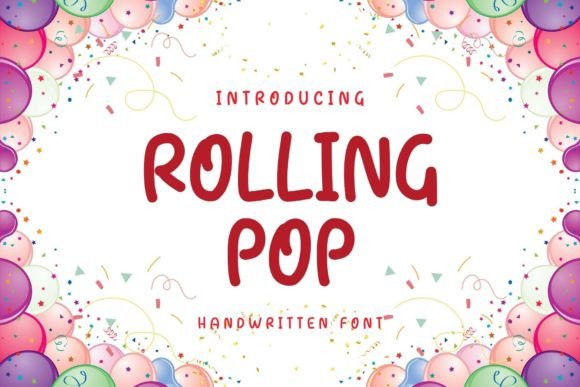
Behold, the Rolling Pop Font: a delightful handwritten script that dances across your projects with playfulness and authenticity. Designed by Brown Cupple Fonts, this charming font is like a melody in typography, perfect for adding a touch of whimsy to your creative endeavors.
Imagine your blog posts, logos, branding, and ads adorned with the unique flair of Rolling Pop. Its playful nature brings life to invitations, greeting cards, planners, photo albums, and decorations. Let your designs blossom with the magic of this font, and savor the joy of crafting truly captivating visuals.
With Rolling Pop, you'll discover endless possibilities for creative expression. Its versatility knows no bounds, effortlessly adapting to a myriad of projects. Whether you're a seasoned designer or just starting your creative journey, Rolling Pop will become your trusted companion, turning your ideas into stunning realities.
Embrace the carefree spirit of Rolling Pop and let your imagination soar. Its enchanting style adds a touch of magic to your designs, captivating your audience with its playful charm. Step into a world of creativity where the boundaries are limitless and the possibilities are endless.
Unleash the power of Rolling Pop and transform your designs into captivating masterpieces. Its charming personality and versatility will make it your go-to font for a wide range of projects. Let your creativity flourish with Rolling Pop, and experience the joy of creating designs that leave a lasting impression.